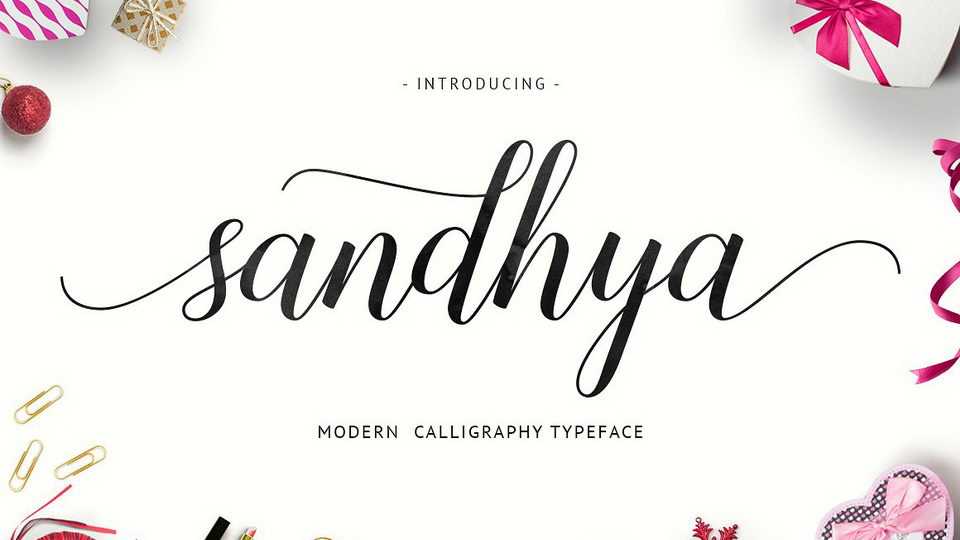
Download Sandhya Script font, a wonderful modern calligraphy typeface with decorative characters and a dancing baseline! Sandhya font is beautiful on invitations, greeting cards, business cards, quotes, posters and more!